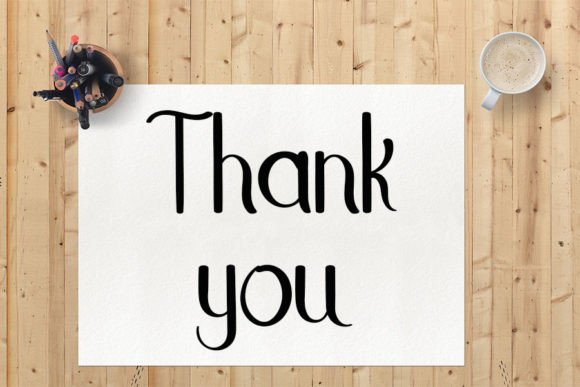
Discover the Whimsy of the Hobbit Font
As a designer, have you ever found yourself scribbling notes in the margins of a sketchbook, only to realize that the handwritten font has become the focal point of your entire design concept? This is exactly what happened to me when I stumbled upon the Hobbit Font – a beautifully crafted, colorful handwritten font that adds a touch of elegance to any project.
Created with a delicate balance of clean lines and quirky flair, the Hobbit Font is the perfect fit for logos, branding, social media graphics, and crafty DIY projects. Whether you’re a seasoned designer or a creative enthusiast, this font is sure to bring a smile to your face and a unique touch to your work. As a valuable addition to any designer’s toolkit, the Hobbit Font is an absolute must-have for anyone looking to add a little whimsy to their designs.
- Unique Characteristics: The Hobbit Font features a distinctive, hand-drawn style with a touch of whimsy and fantasy, perfect for book covers, posters, and other creative projects.
Hobbit Font Review
I’ve had the chance to work with the Hobbit Font on a few projects, and here’s my honest take on it.
- Unique character: The Hobbit Font has a distinct, whimsical feel to it that’s perfect for projects with a fantasy or adventure theme.
- Legibility: Despite its quirky nature, the font is surprisingly easy to read, even at smaller sizes.
- Customization: The font comes with a range of variations and styles, making it easy to tailor to your specific design needs.
- Limited versatility: While the Hobbit Font excels in certain contexts, it may not be the best choice for more formal or corporate projects.
- Overuse: The font’s distinctive style can become overwhelming if used too extensively – be sure to balance it with other fonts and design elements.
- Distortion at small sizes: While legible overall, the font can become pixelated or distorted when scaled down to very small sizes.
The Hobbit Font is a charming and versatile choice for the right project. While it may have some limitations, its unique character and customization options make it a great addition to any designer’s toolkit. Just be mindful of its potential drawbacks and use it thoughtfully to get the best results.
Hobbit Font is ideal for:
Children’s book illustrations
Whimsical logo designs
Custom graphics and illustrations
Unique title and heading designs
Tips for Getting the Most Out of Hobbit Font
Combine Hobbit Font with other fonts for a unique and interesting design.
Use Hobbit Font for titles, headings, and other design elements where a whimsical touch is desired.